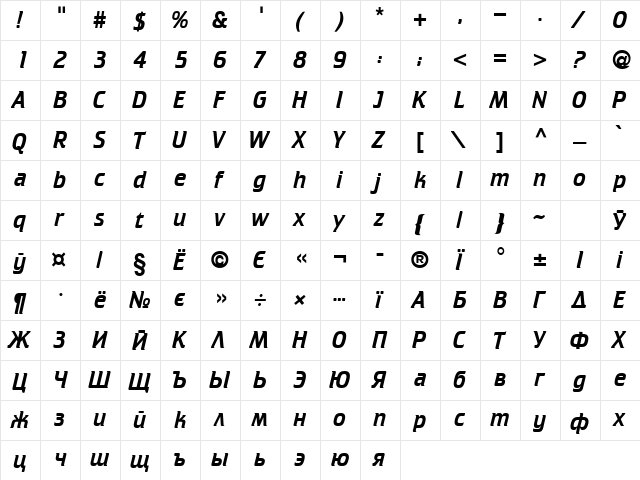
Cricket Normal
Design Context for Cricket Typeface
Cricket offers clean, dependable letterforms without strong stylistic allegiance, making it a practical choice for designers who need flexibility.